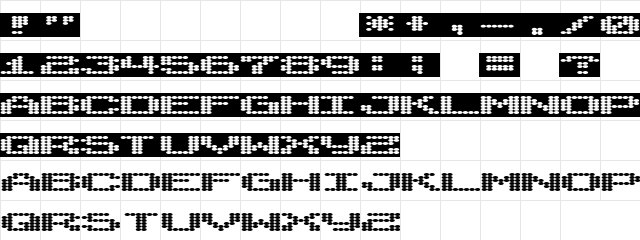
Chethak Bond Regular Font Preview
Chethak Bond Regular
Chethak Bond Regular Font Details
Design Context for Chethak Bond Typeface
Chethak Bond is a composed and adaptable typeface that performs quietly and consistently across a wide range of design contexts.